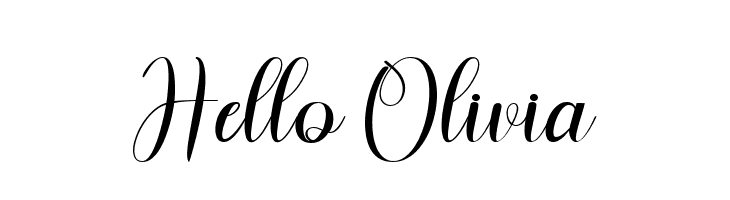
( Fonts by weknow - Wino S Kadir )
A bold, geometric font with sharp angles and a futuristic style.
( Fonts by weknow - Wino S Kadir )
A bold, geometric font with a futuristic and modular design.
( Fonts by weknow - Wino S Kadir )
A bold, playful font with dynamic, rounded characters and a whimsical style.
( Fonts by weknow - Wino S Kadir )
A futuristic and abstract font with smooth, flowing lines and a dynamic style.
( Fonts by weknow - Wino S Kadir )
A whimsical, vine-like font with delicate, artistic curves.